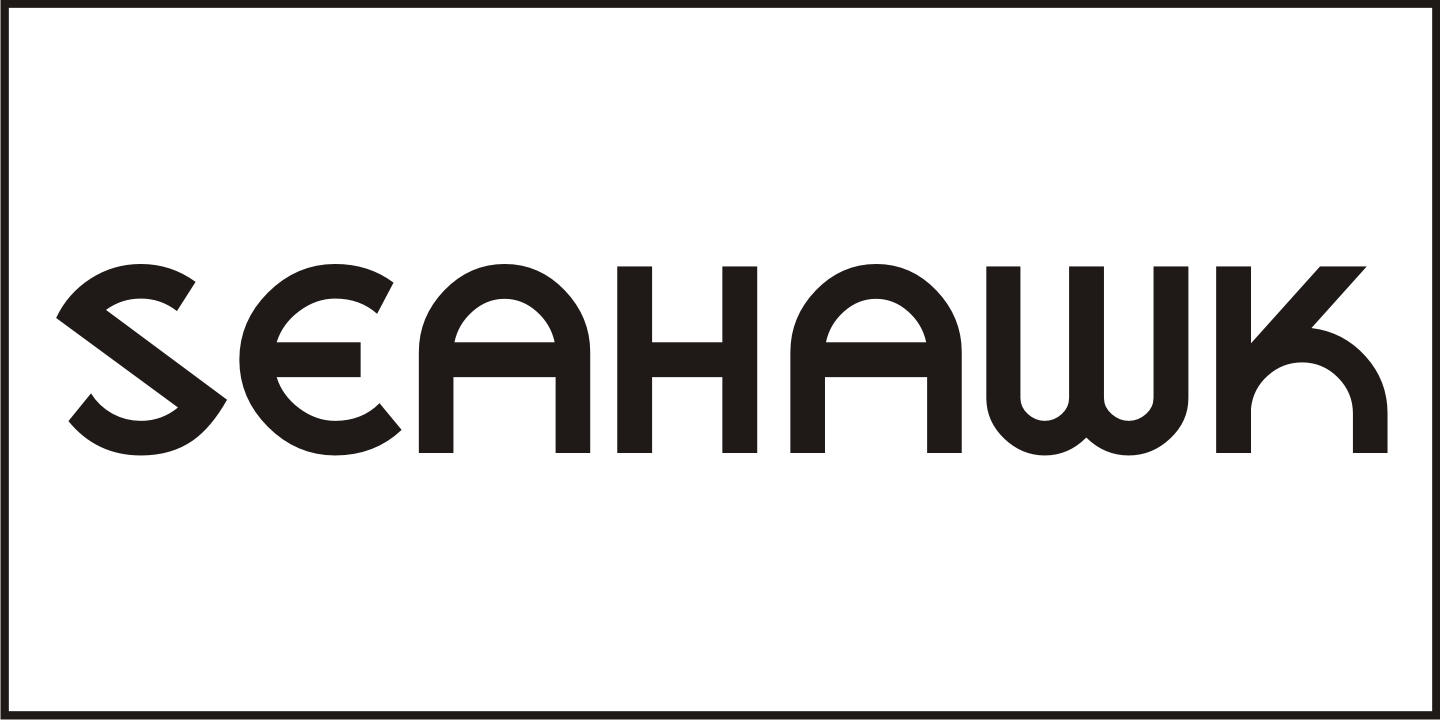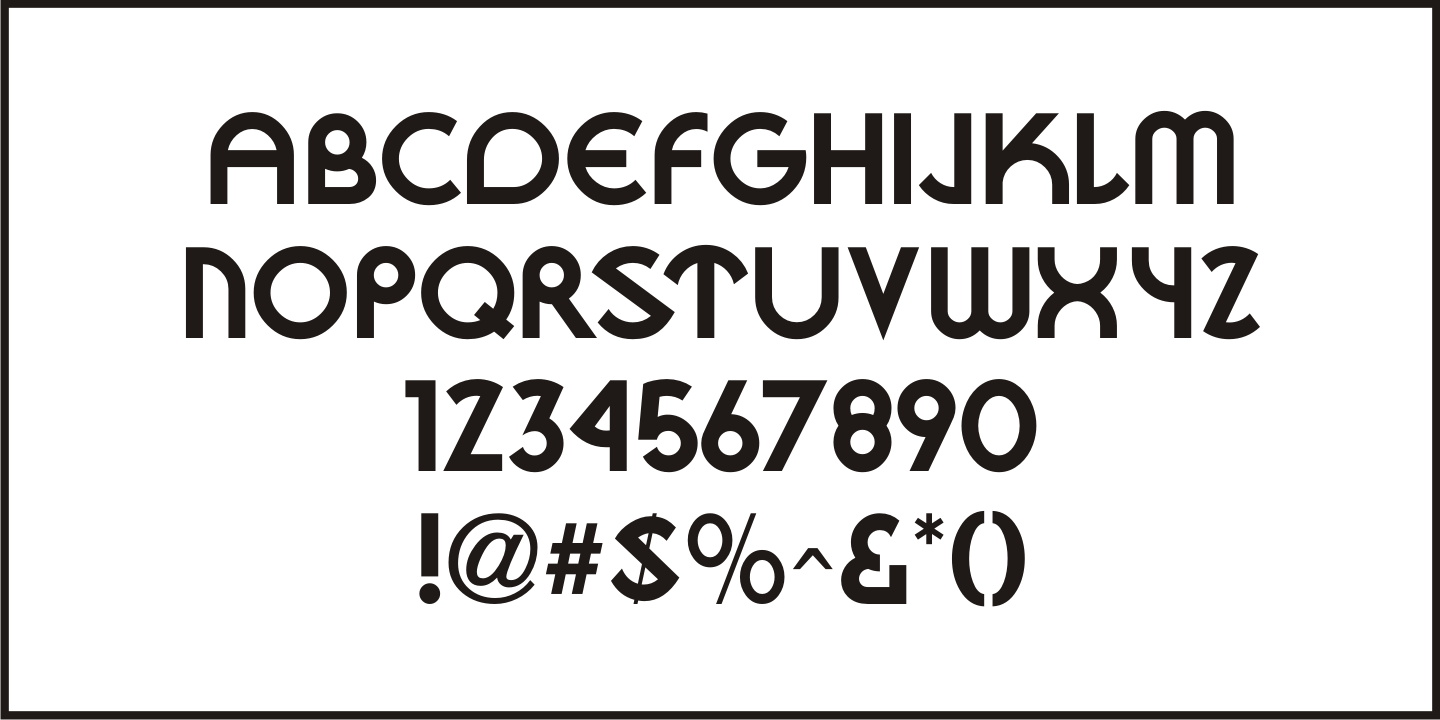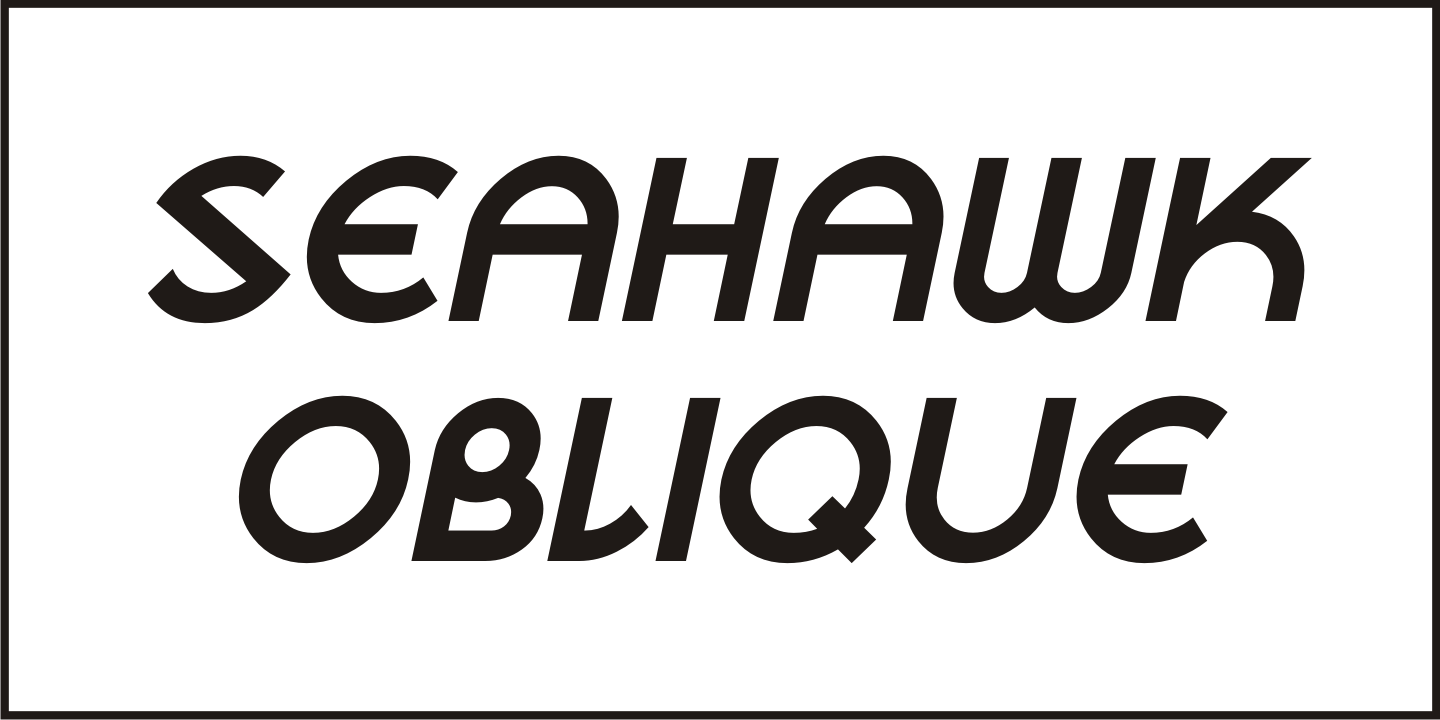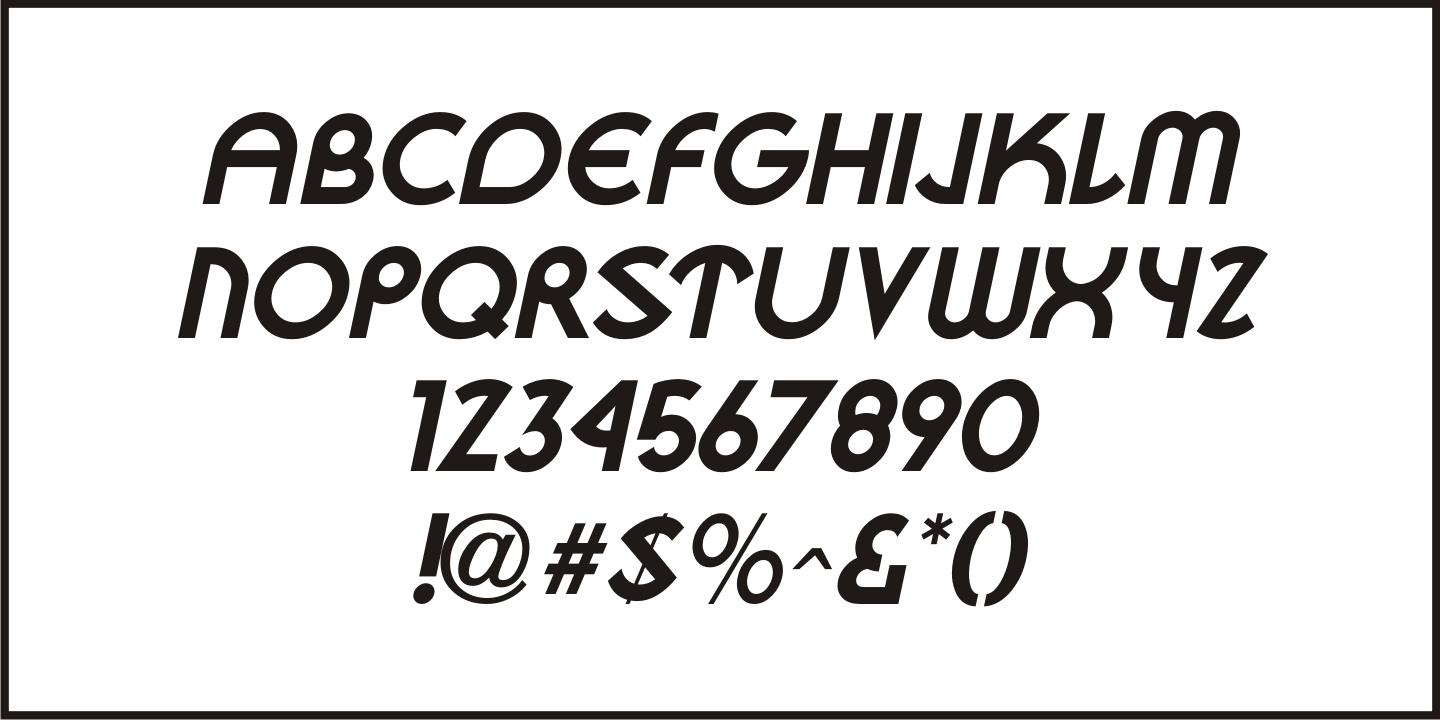
Seahawk
The 1939 sheet music for 'Sea Dreams' had its title hand lettered in an unusual Art Deco style that employed many unusual character shapes and widths within the font design.
A teardrop-shaped 'D', a slightly off-kilter 'S' and a number of other interesting variations became the model for Seahawk JNL, which is available in both regular and oblique versions.
The term 'Seahawk' is another name for an Osprey.
Seahawk JNL Regular by Jeff Levine Fonts